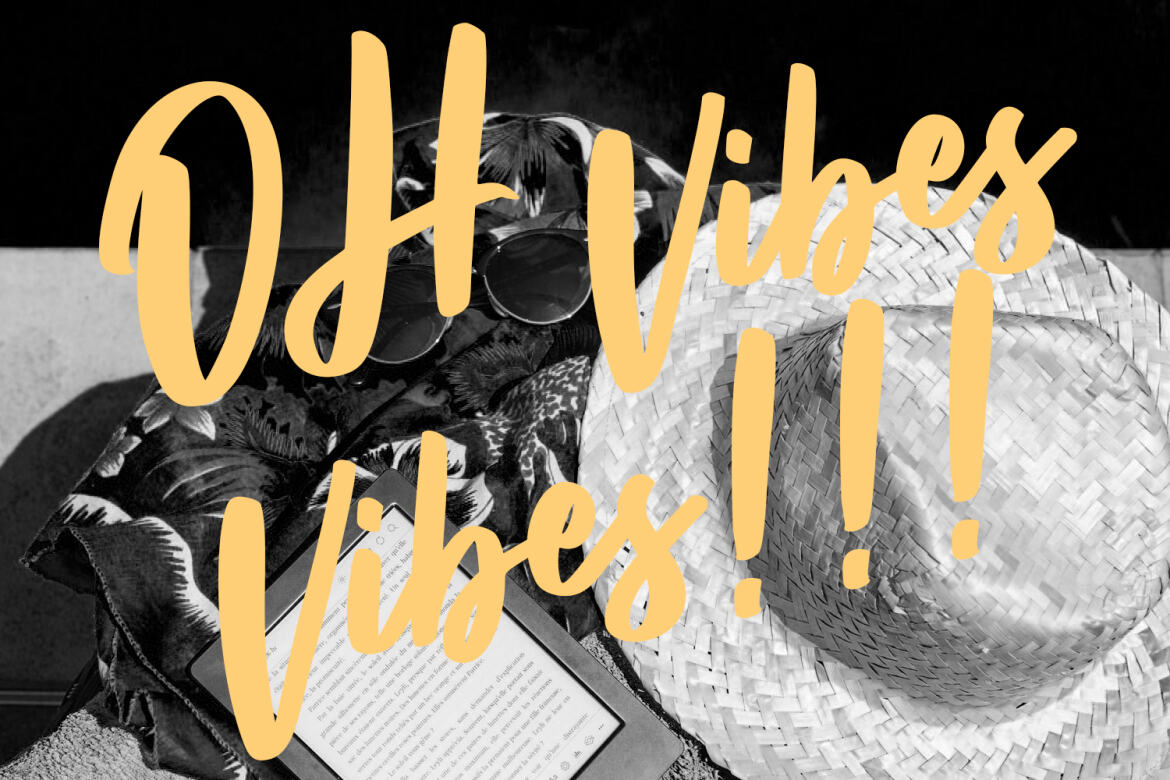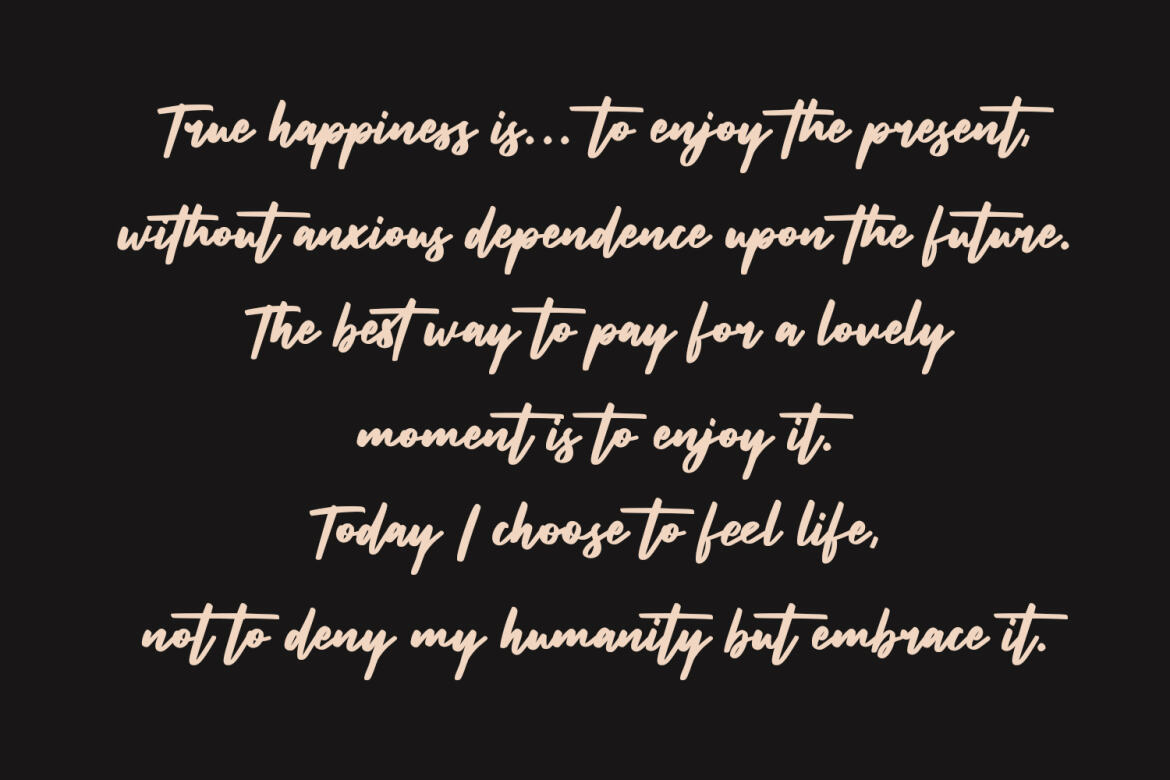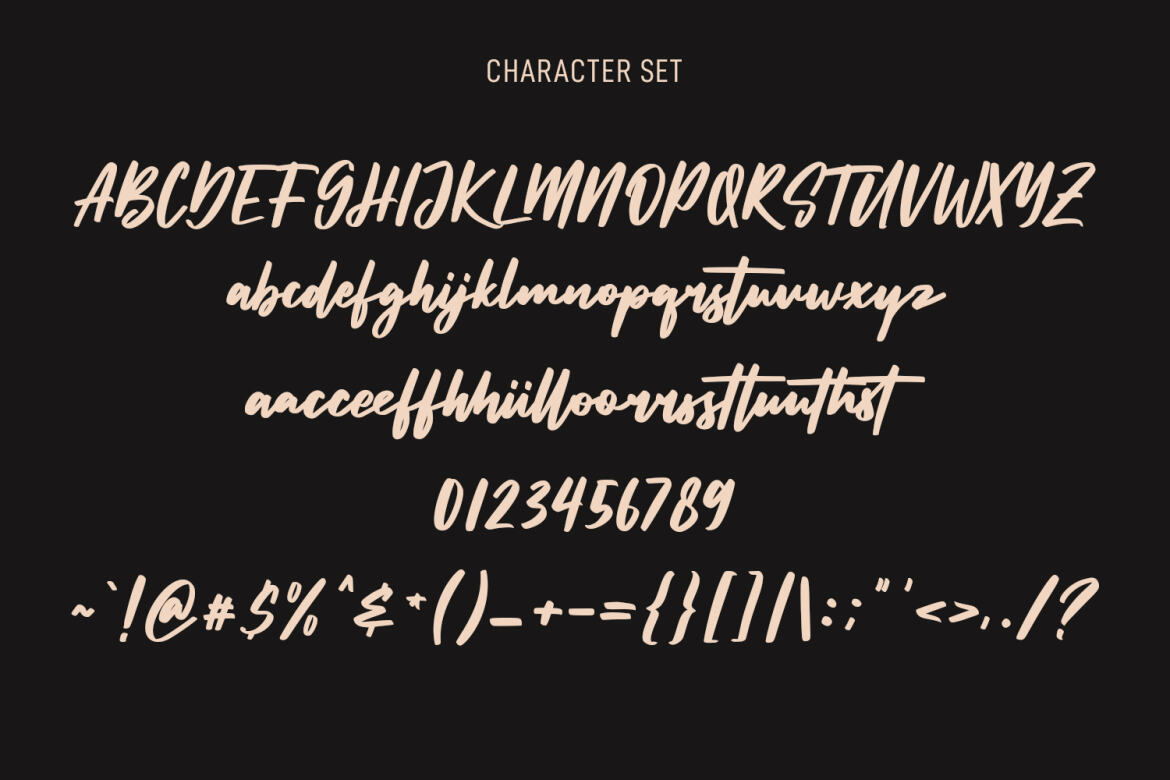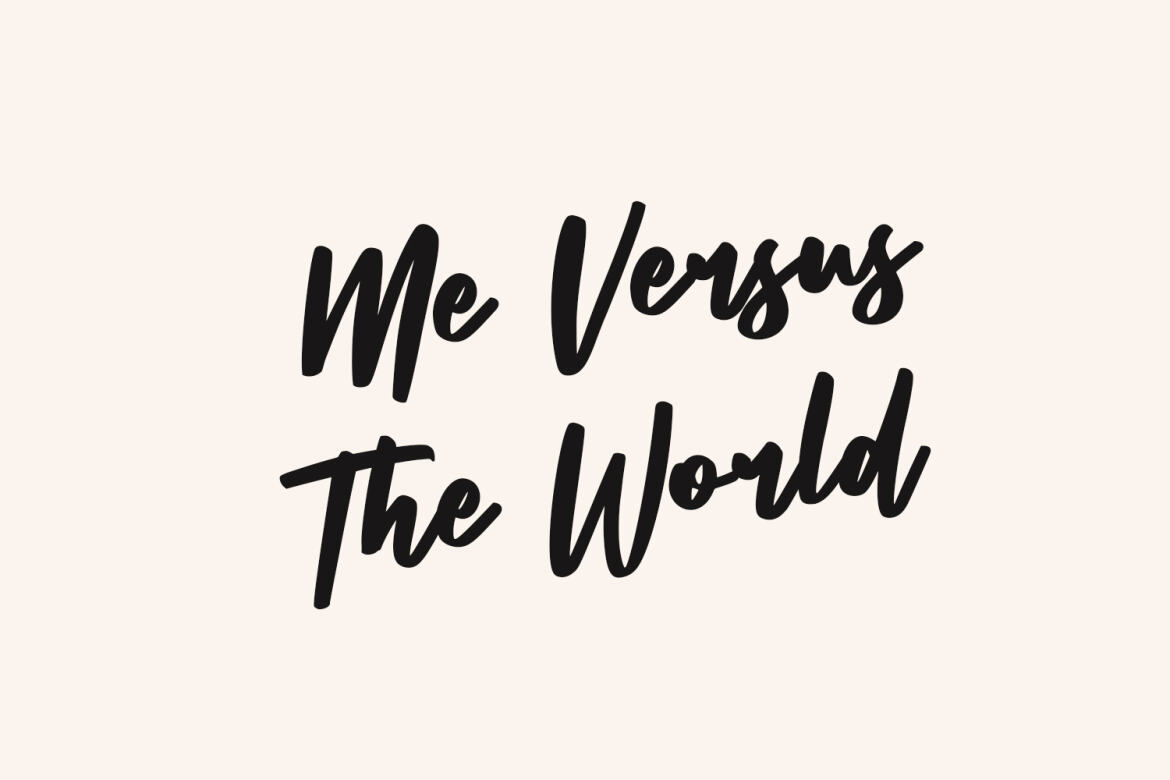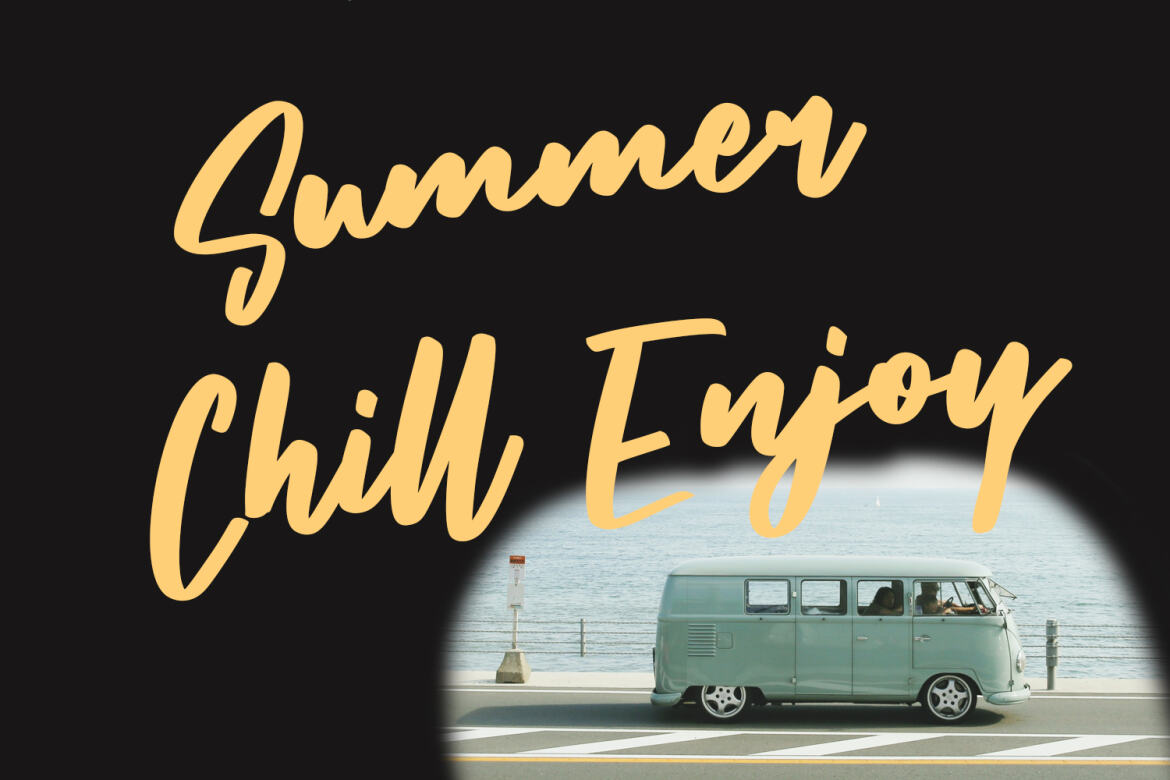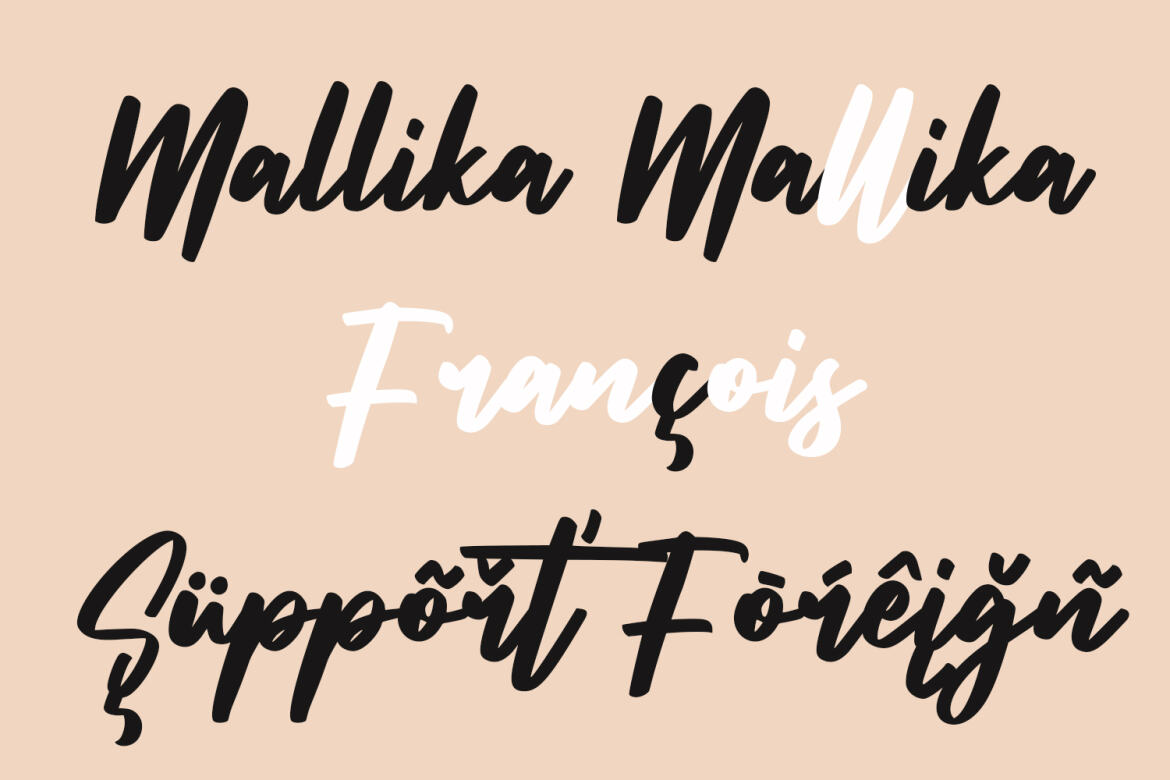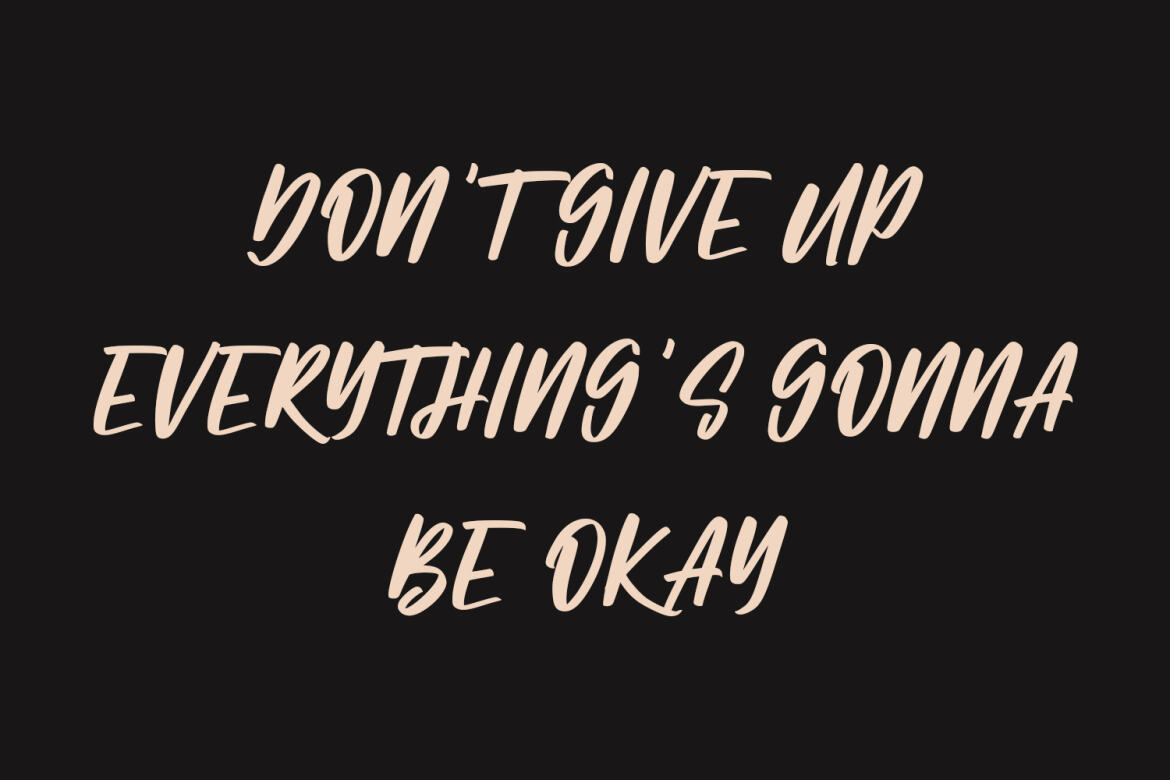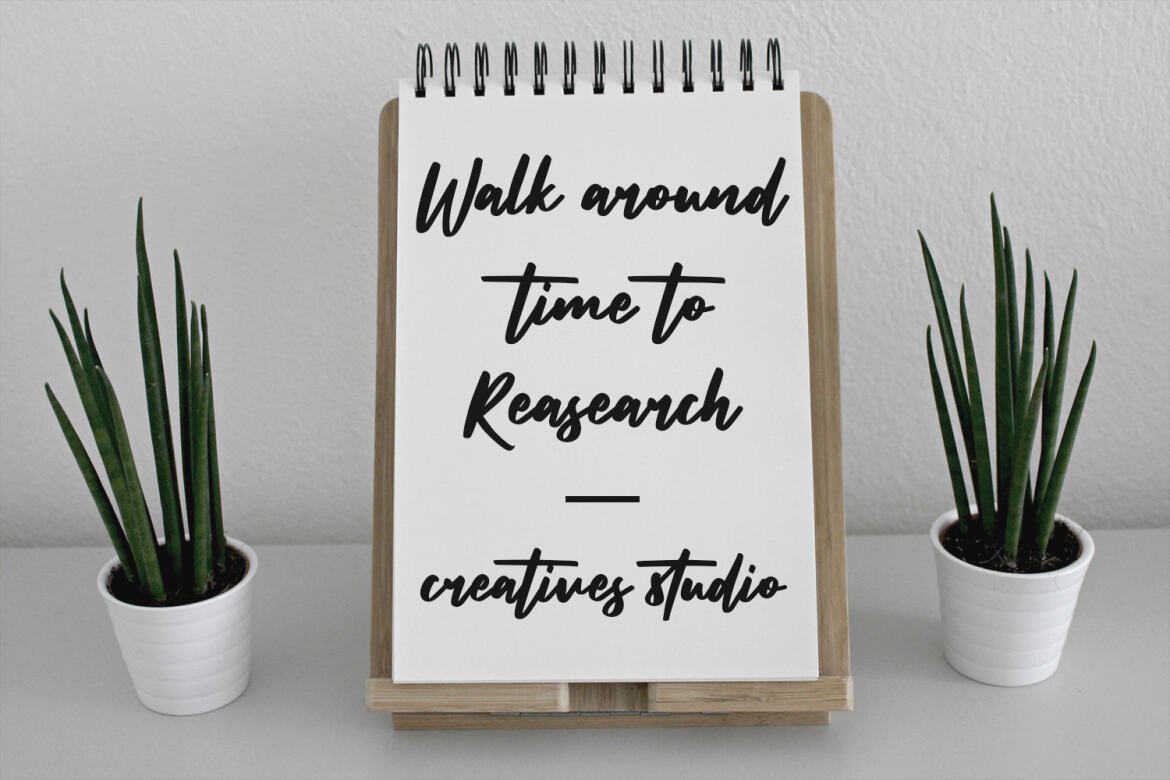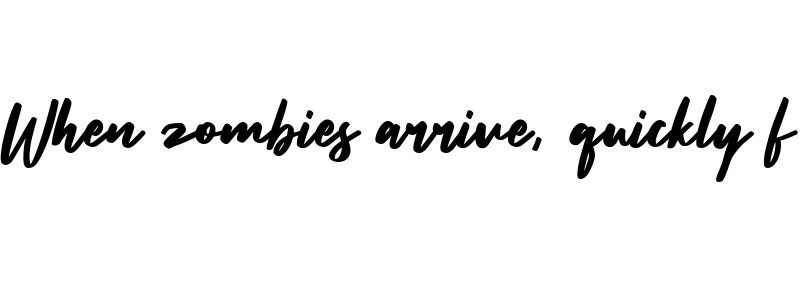
Sunsetstill
Sunsetstill is a casual signature script font. With bold felt-tip stroke, slanted and fun character with a bit of ligatures. To give you an extra creative work. Sunsetstill font support multilingual more than 100+ language. This font is good for logo design, Social media, Movie Titles, Books Titles, a short text even a long text letter and good for your secondary text font with sans or serif. Make a stunning work with Sunsetstill font.